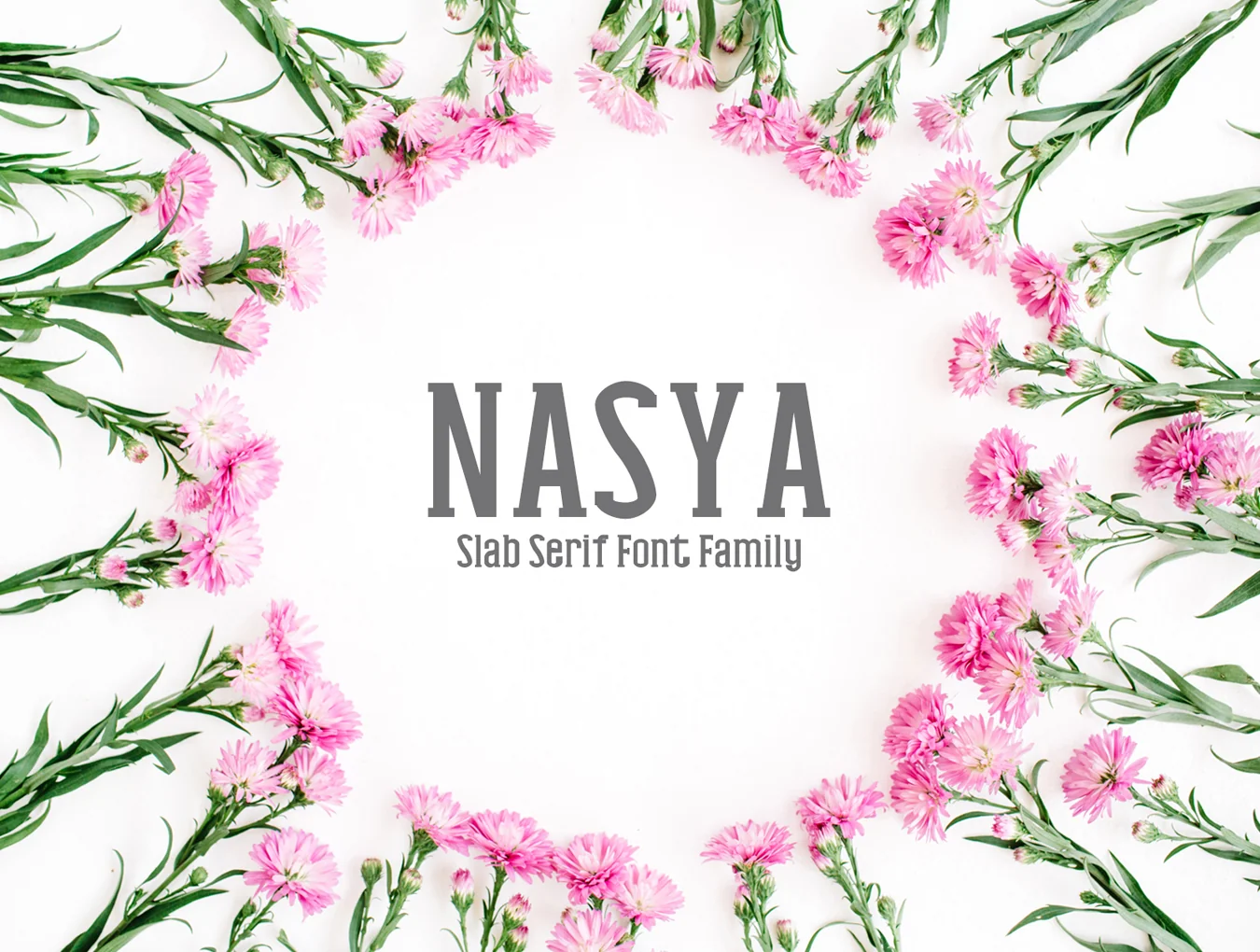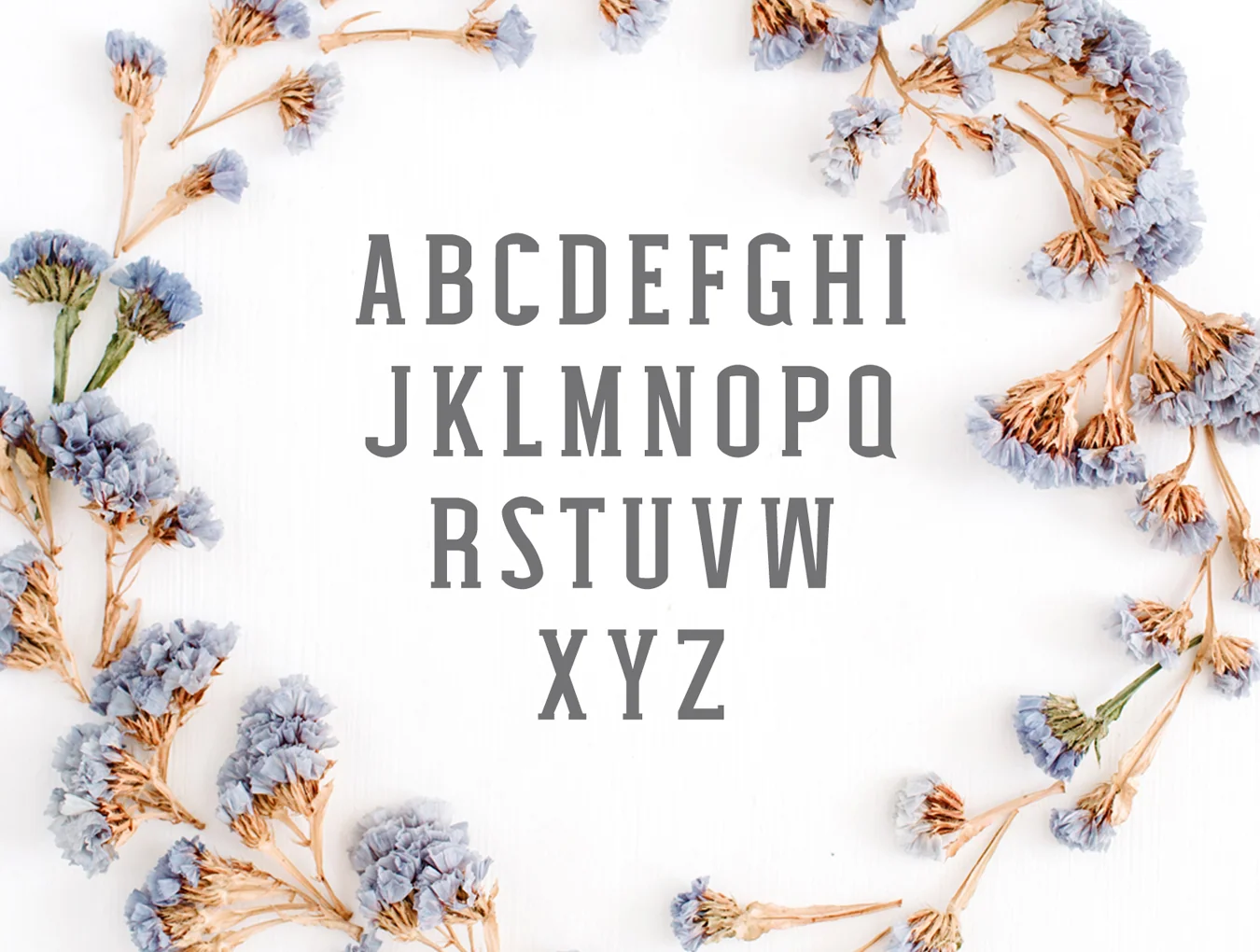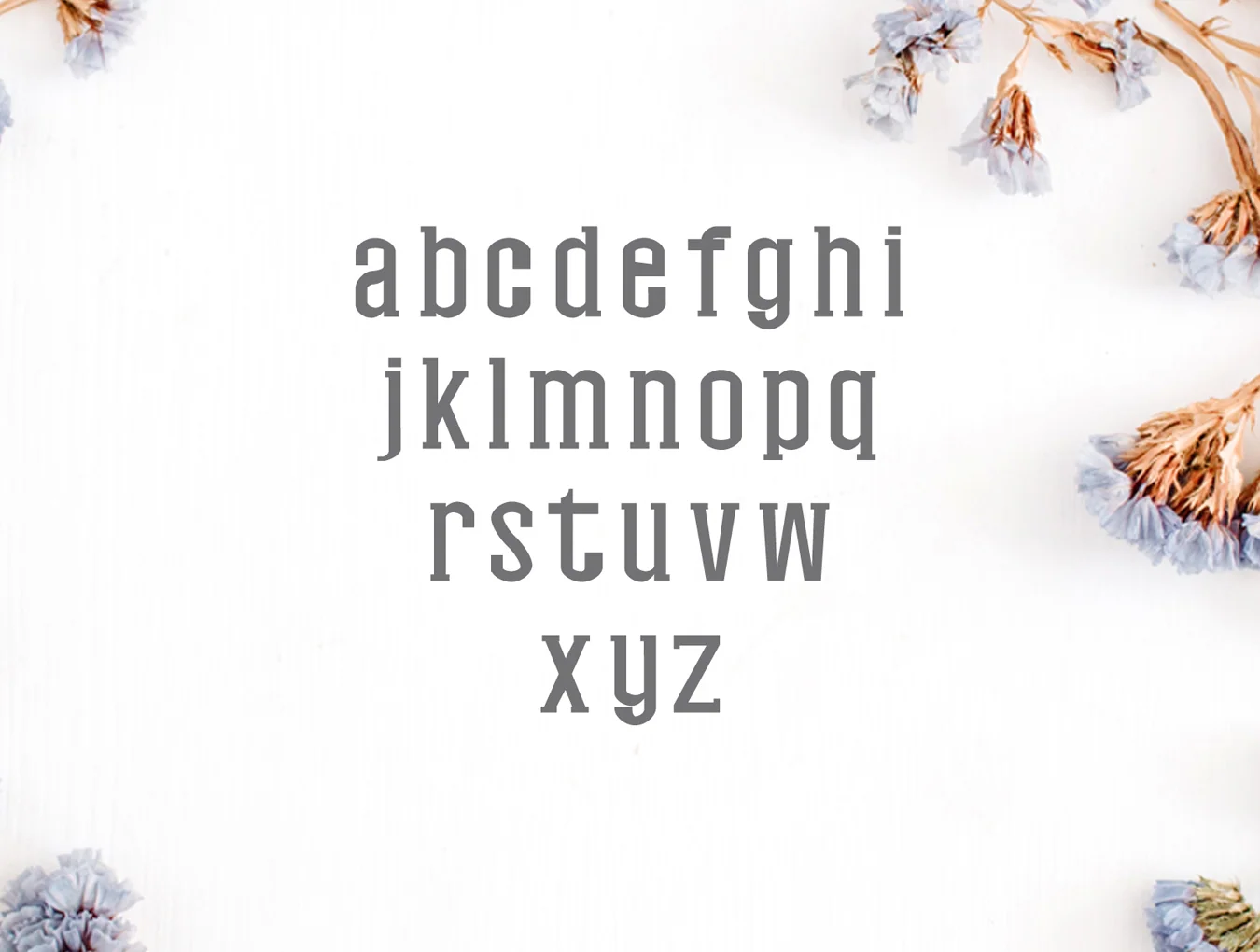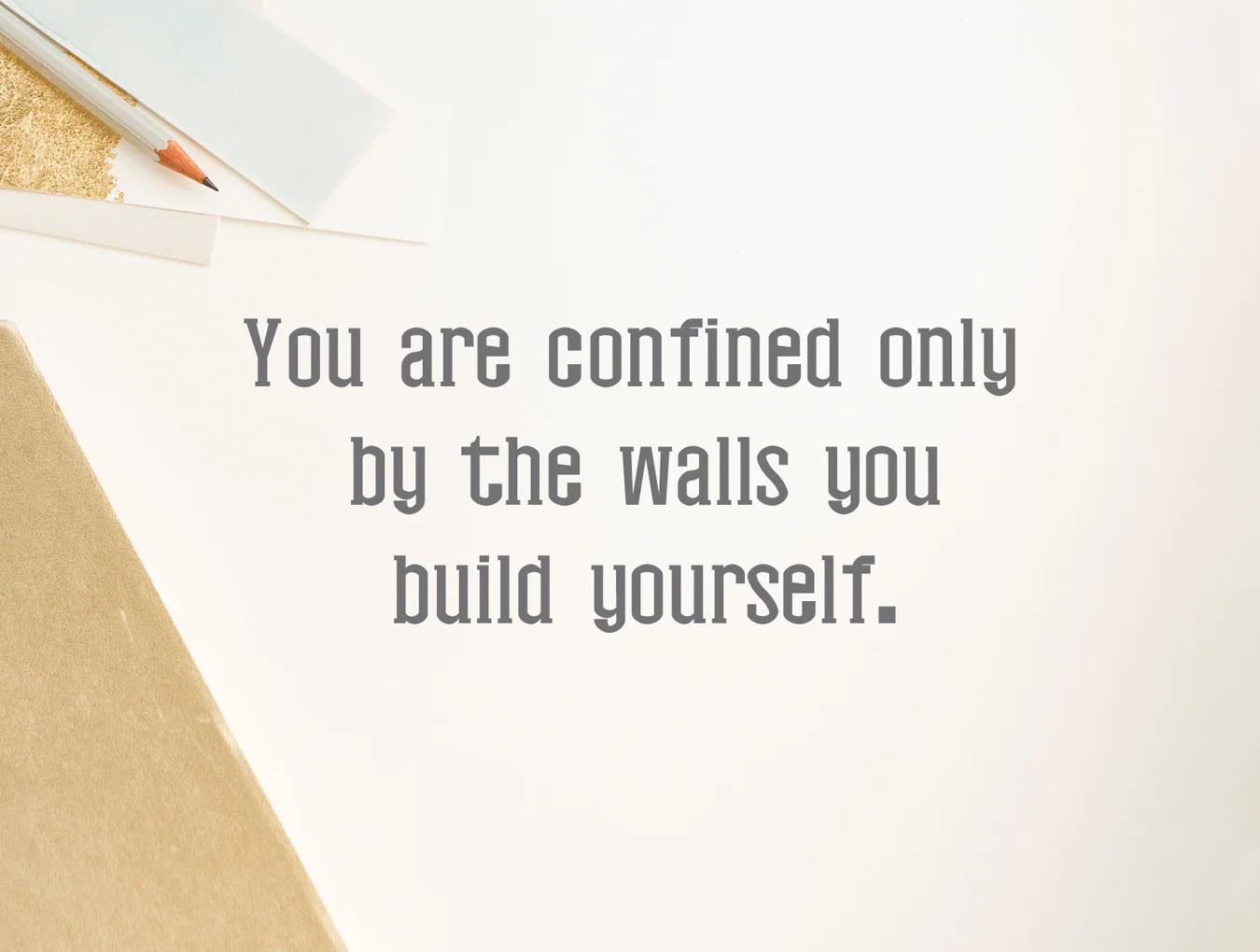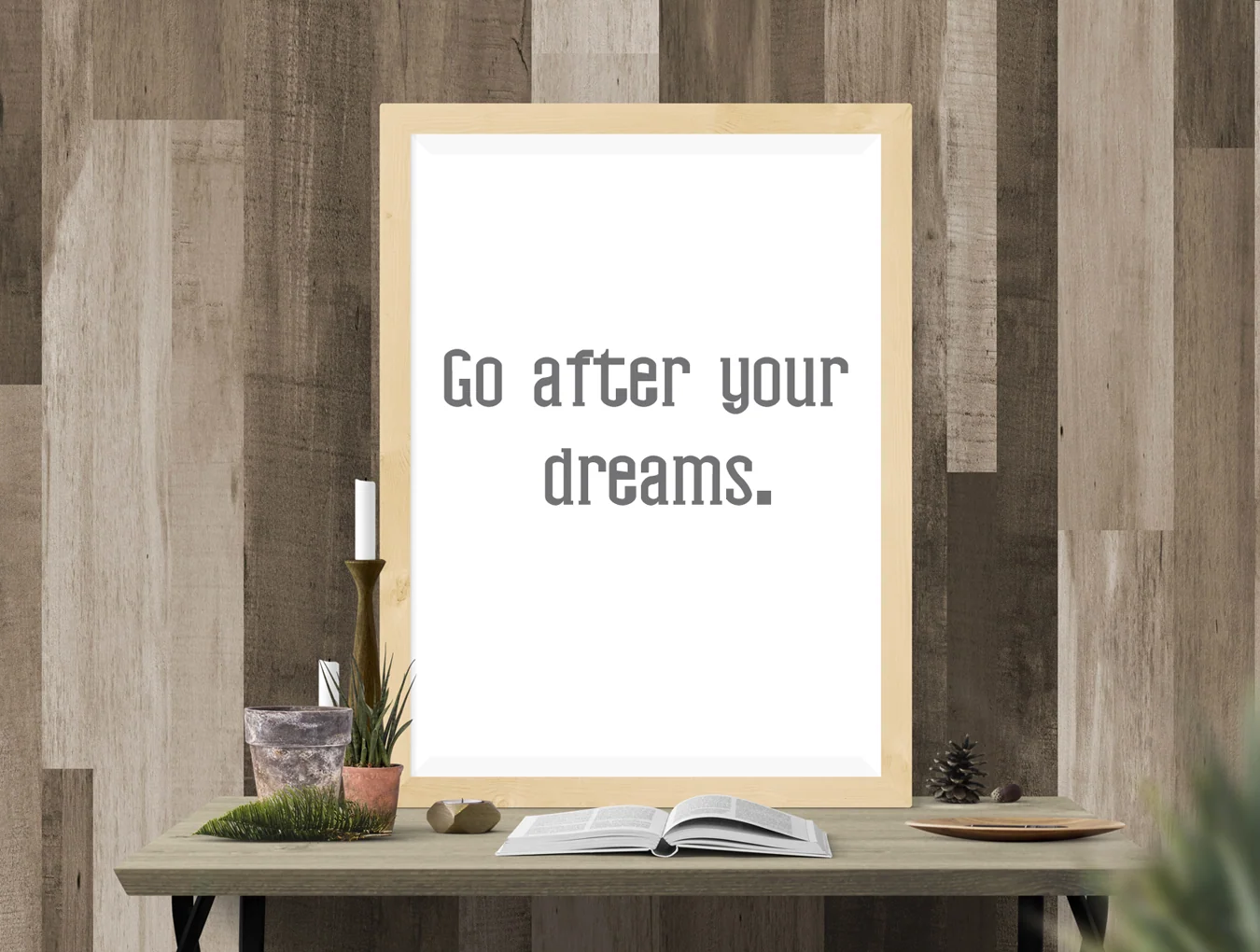
Nasya Slab Serif Family
Slab serif typeface
Regular and thin font weights
Slab serif typeface
Regular and thin font weights
Nasya is a contemporary slab serif typeface featuring four weights, standard letters, punctuation, and alternate characters. It works well for quotes, invitations, posters, flyers, blogs, websites, banners, clothing, greeting cards, wedding stationery, headlines, packaging, logos, magazines, and more.